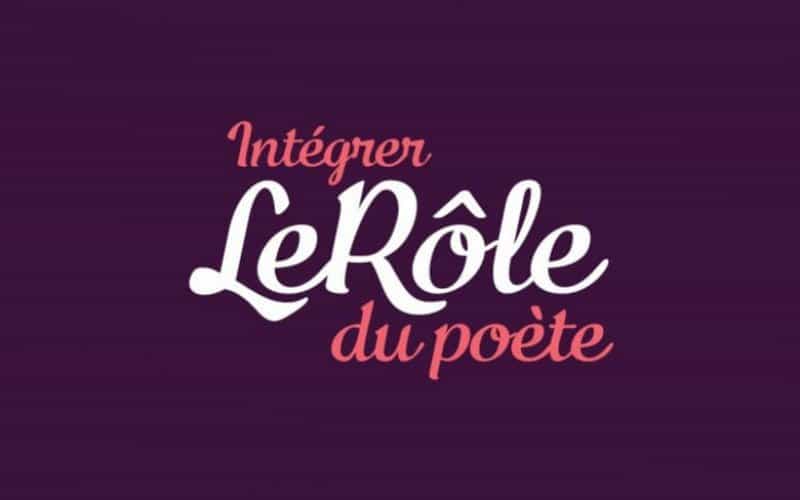
Kecap. Entertaining, new and beauty, Kecap is a sweet connected script that will be perfect for display and text. This font is perfect for logo, branding, product, cards, labels, infographic, photography and other creative projects. The font has the regular and italic weights, as well as a multilanguage Latin support that include more than 300 glyphs.